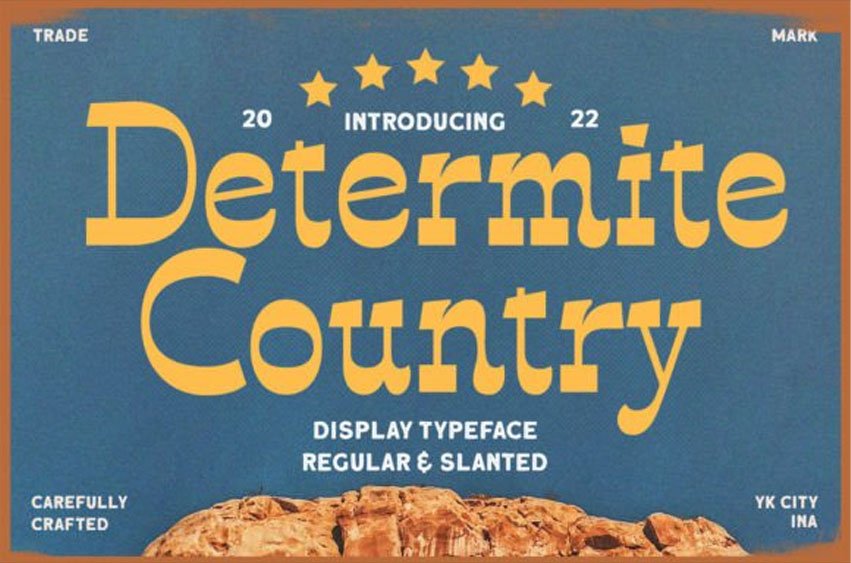
Determite Country Font is a cool, western-style display font. This unique and vintage font can easily become your favorite.
It can be used for books, magazine covers, social media posts, invitations, and so much more! So add this to your creations and take your designs to the next level!